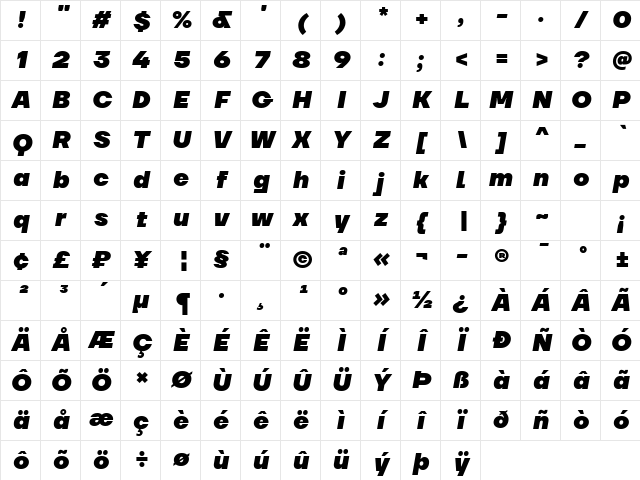
TT Firs Neue Trl Black It
Style: Black It
Designer: TypeType
Design Context for TT Firs Neue Trl
TT Firs Neue Trl is a composed and adaptable typeface that performs quietly and consistently across a wide range of design contexts.